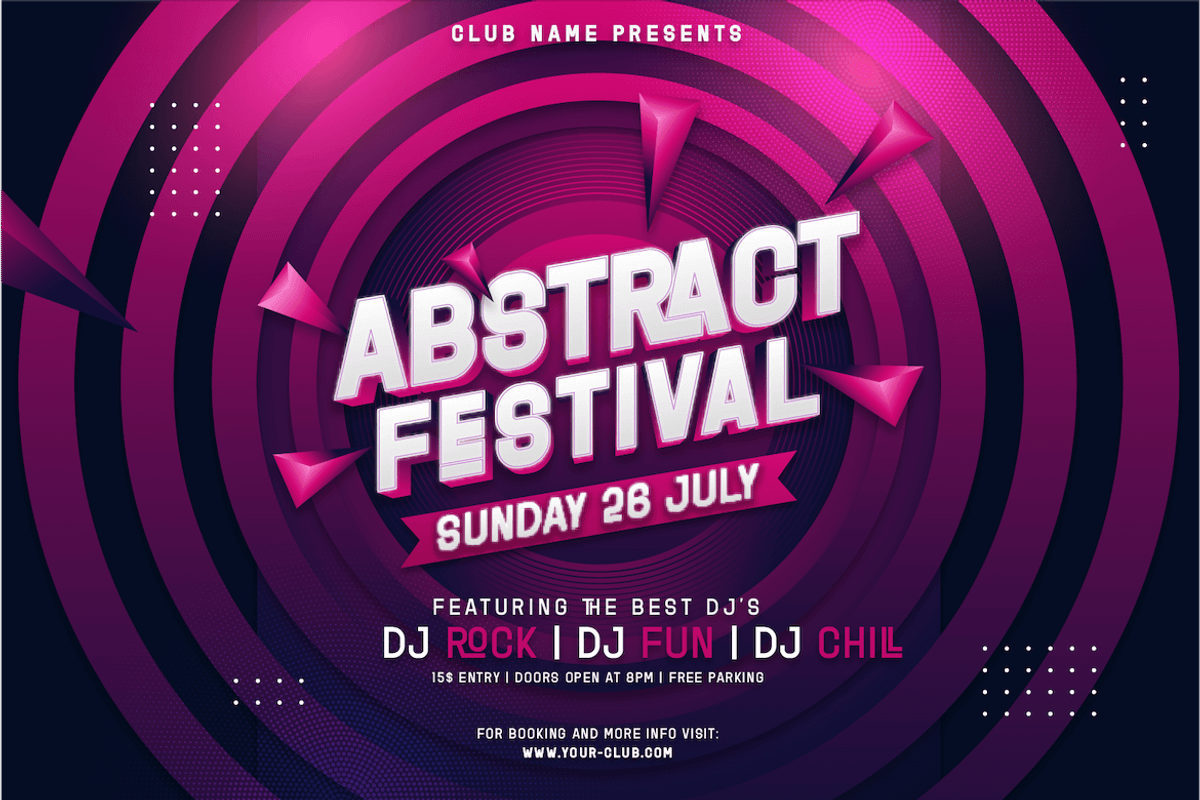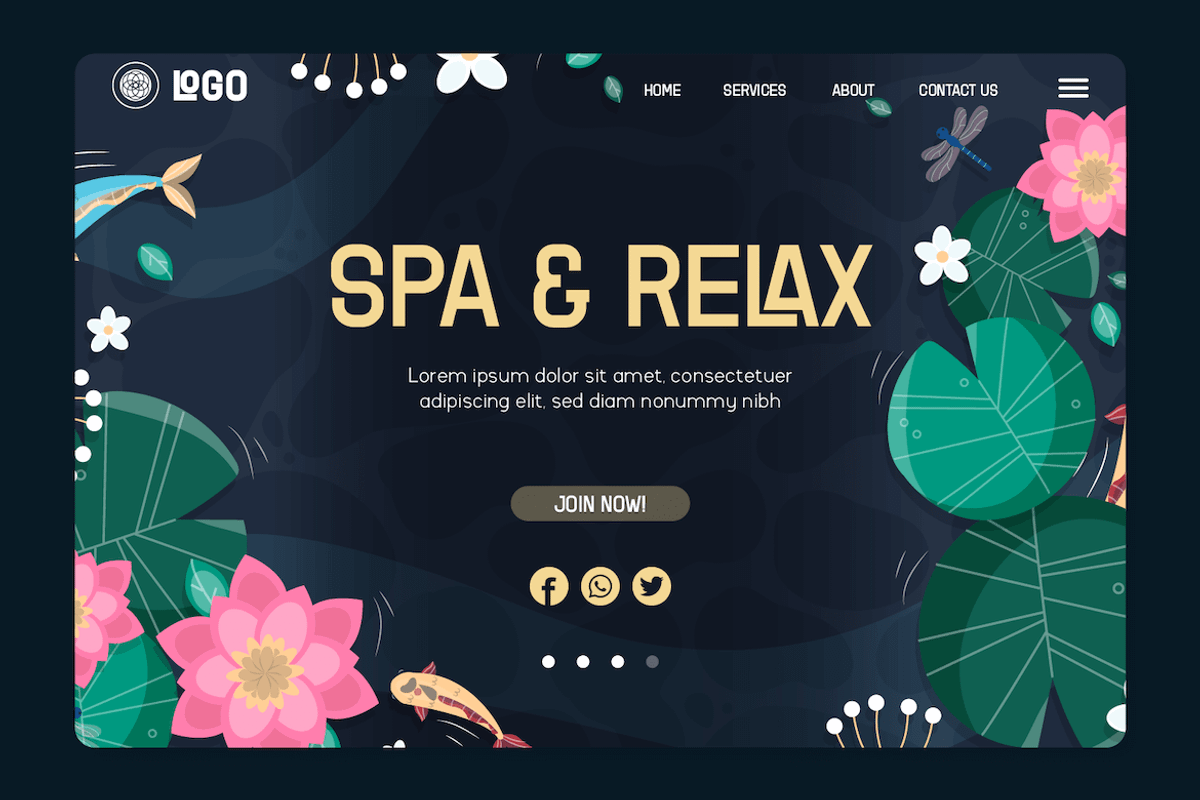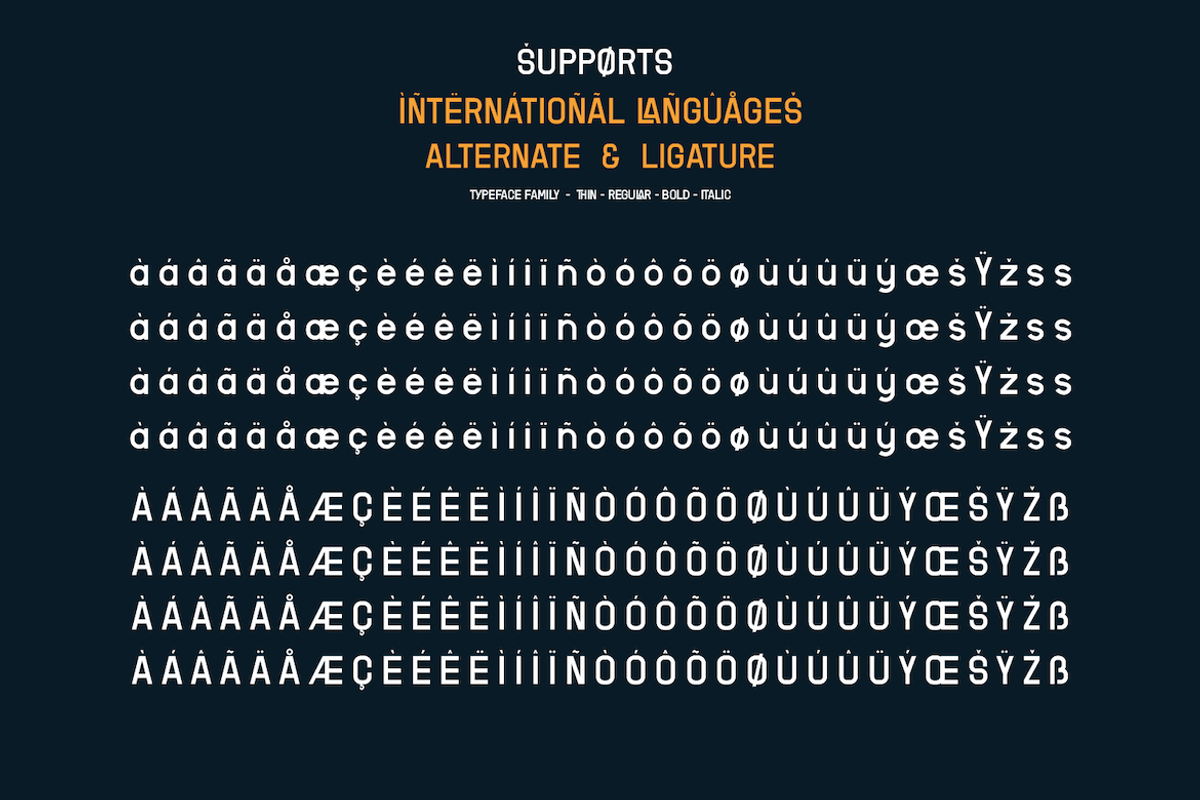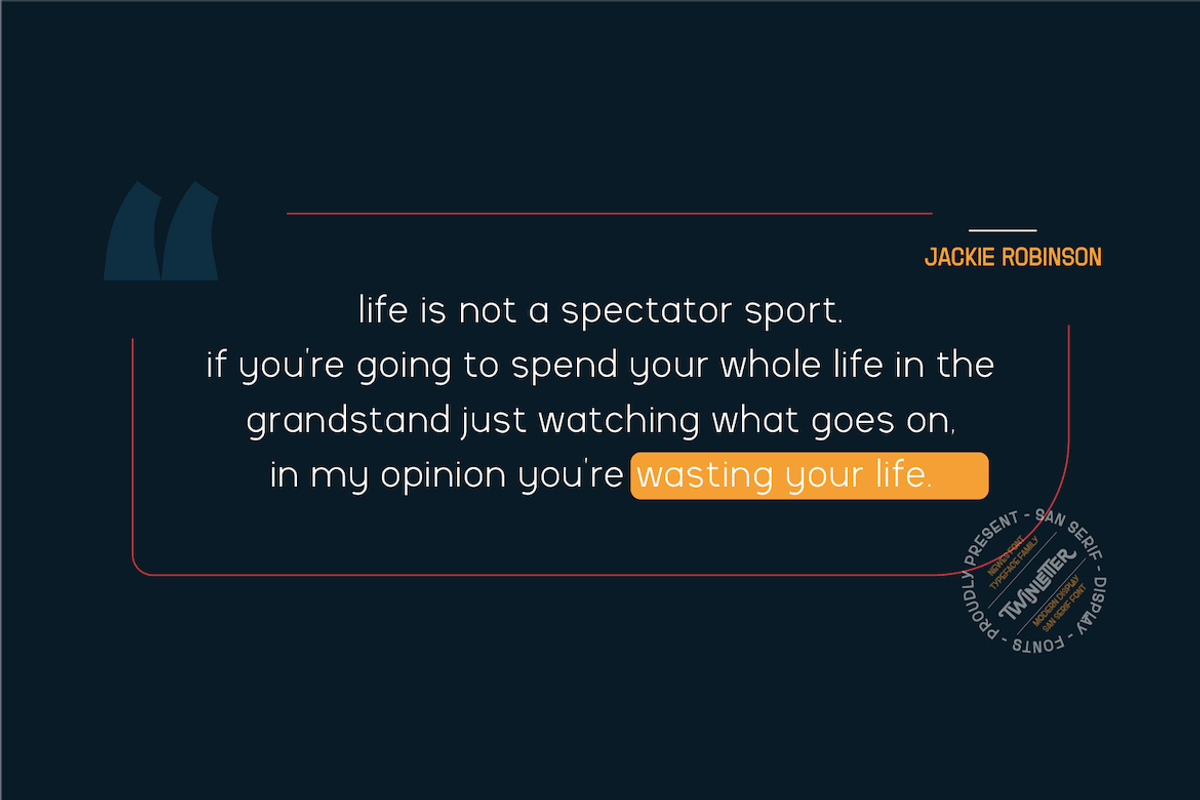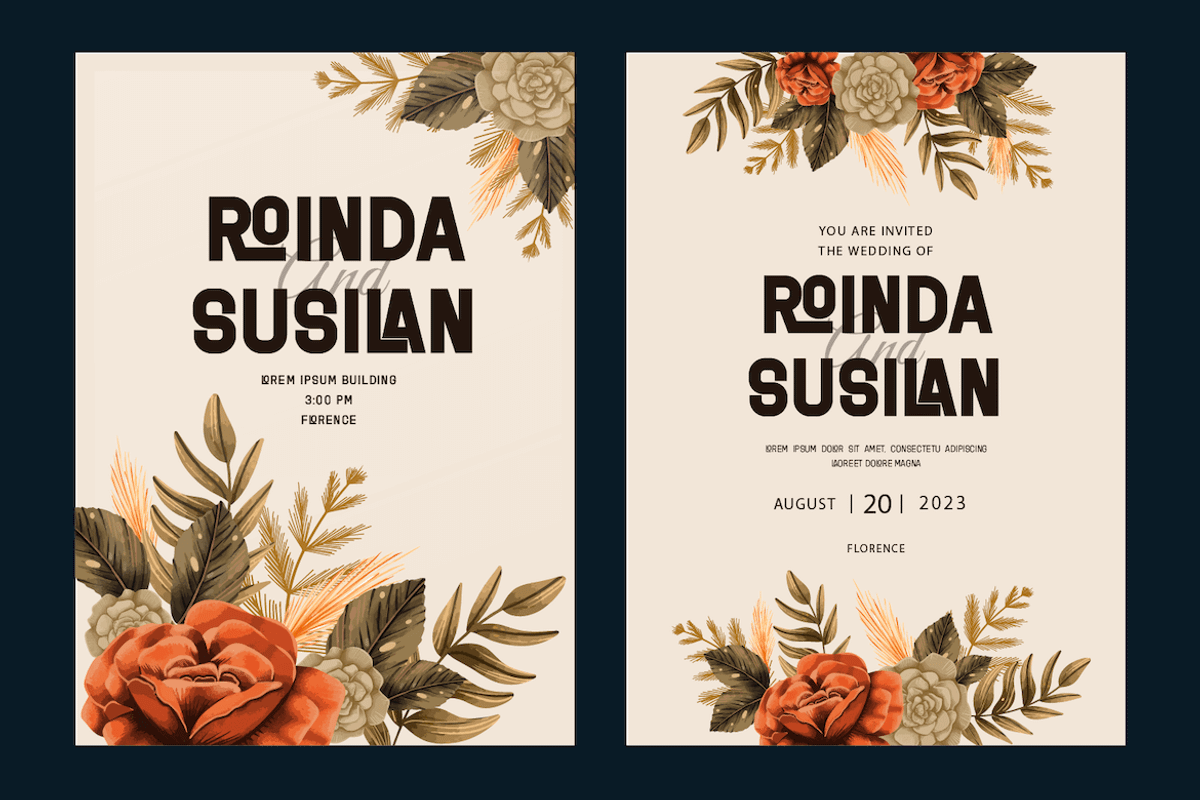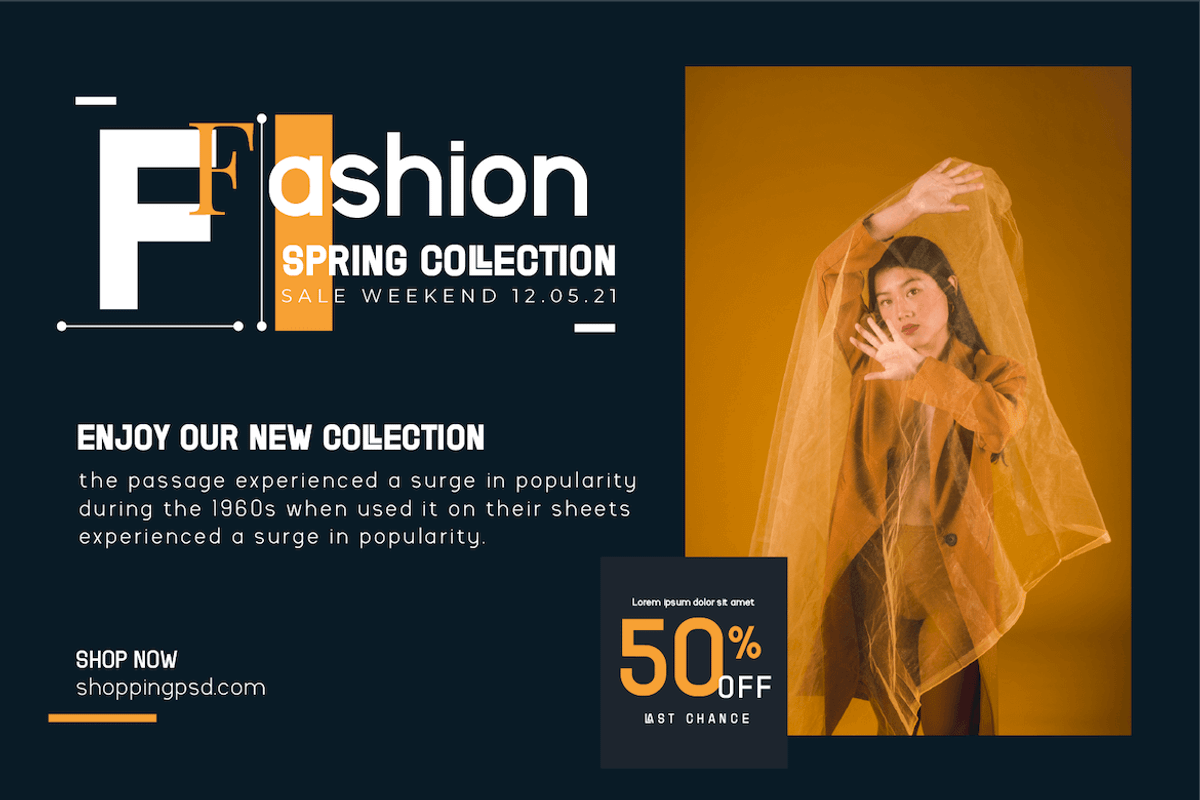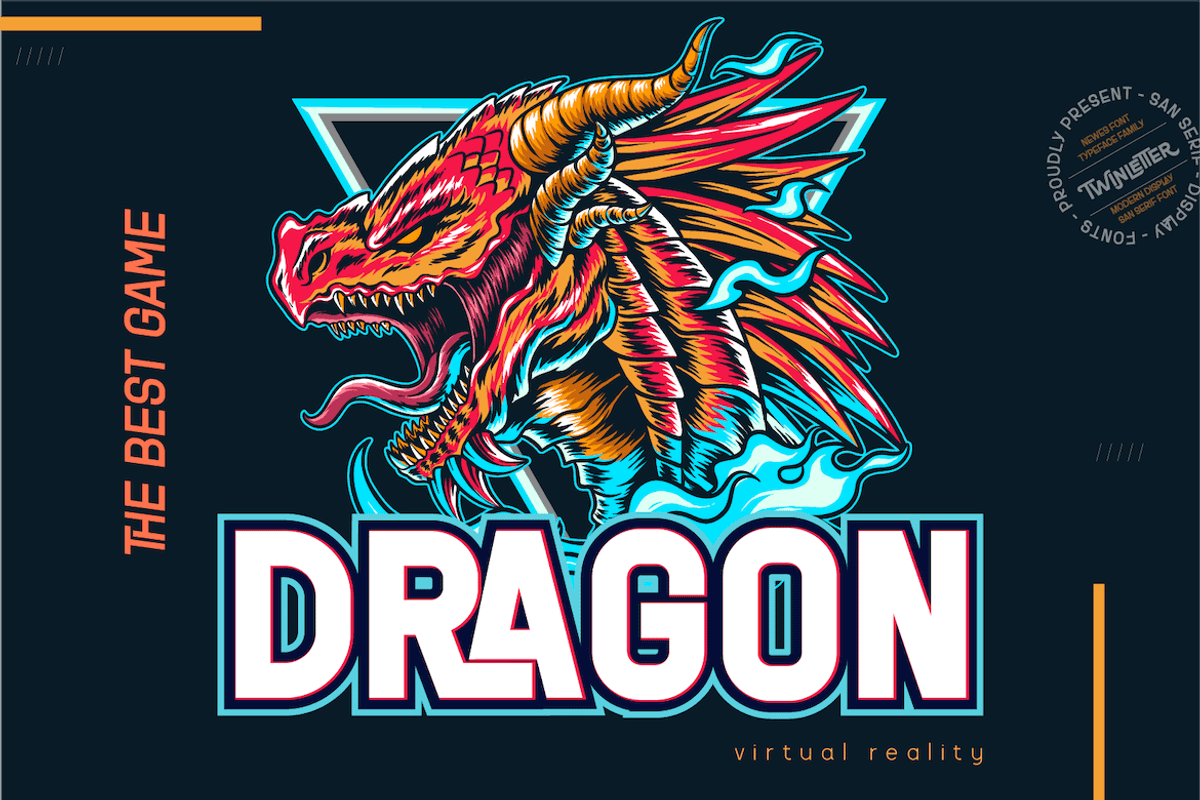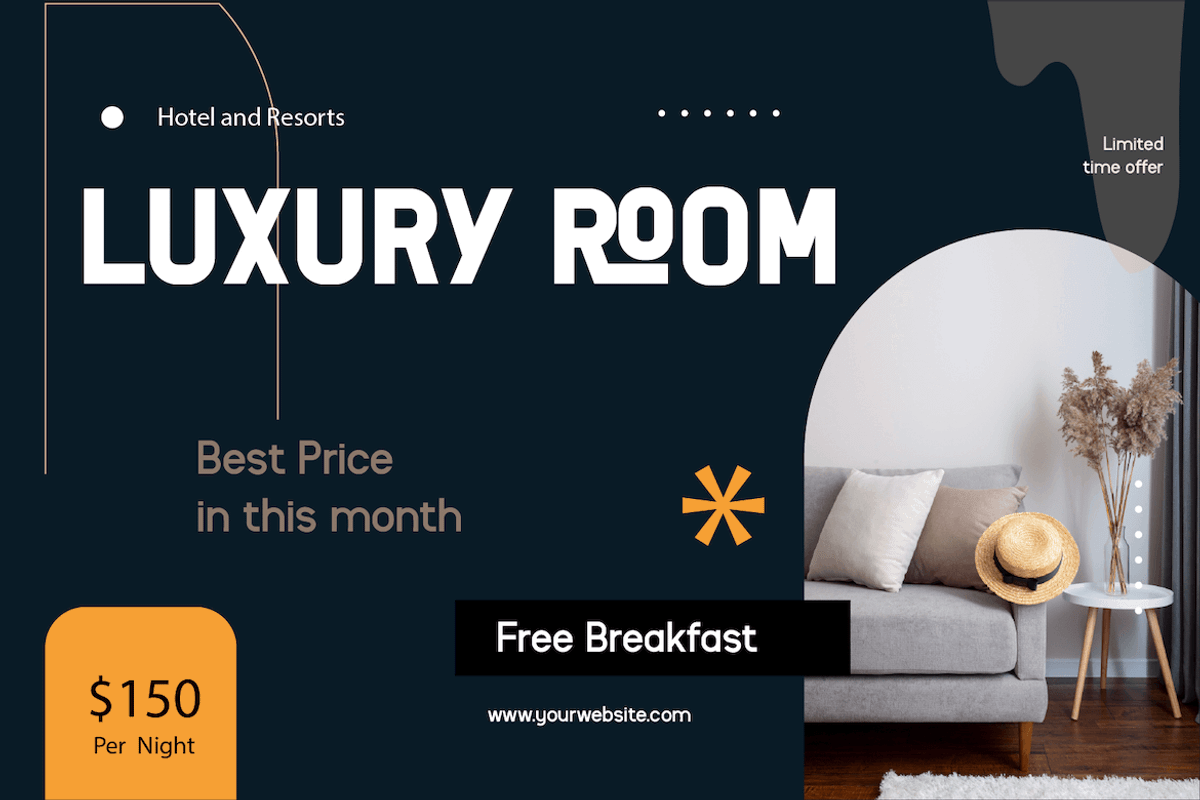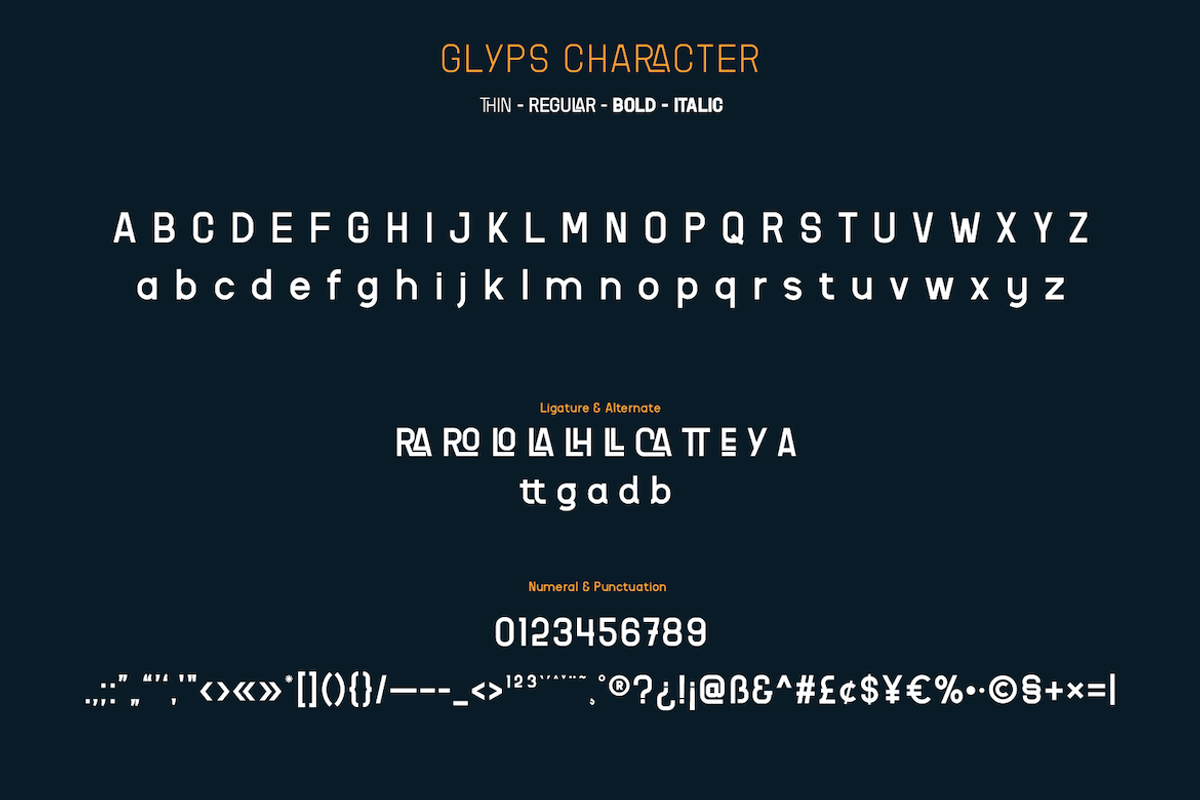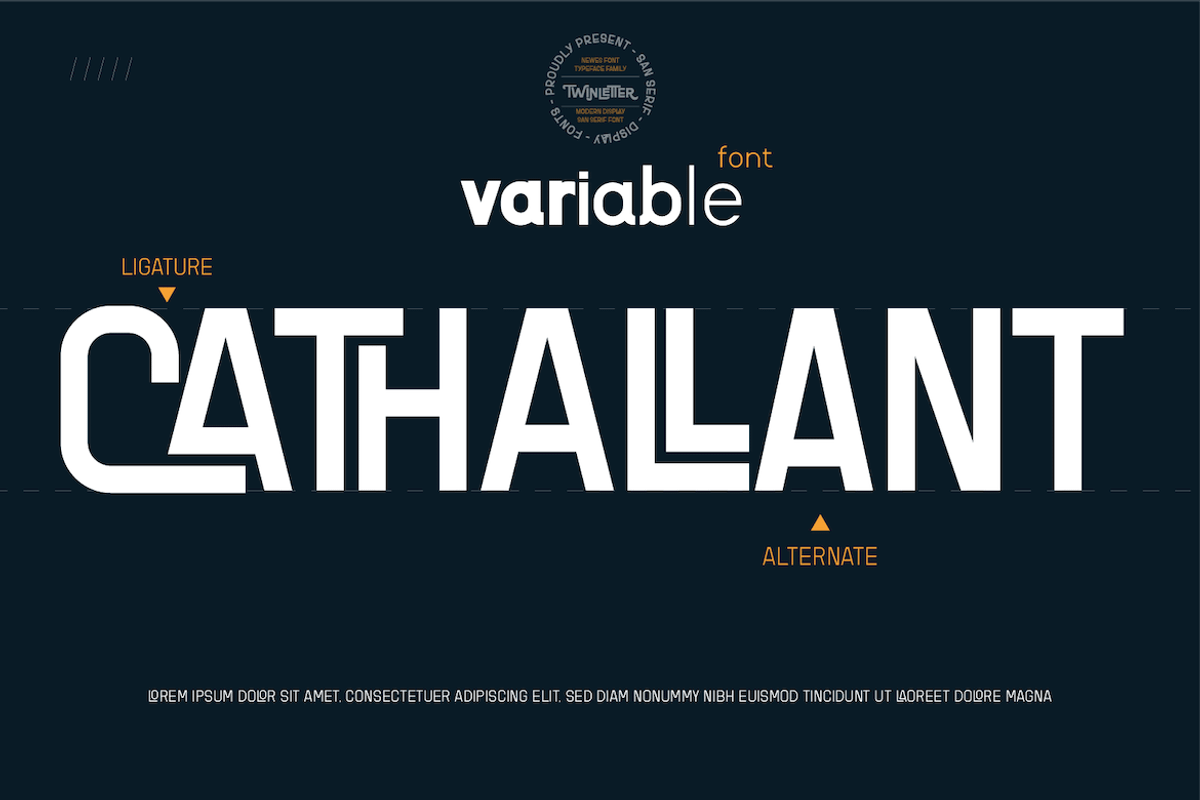
Cathra
Introducing our newest font Cathra.
a font that is enriched with a variable font family for the needs of words, as well as text, is also equipped with beautiful ligatures and alternates on certain letters. We designed this san serif family font by paying attention to the combination of each letter to create a beautiful impression and appearance, making it easier to answer your needs, both formal and non-formal needs. This font is perfect for a wide variety of design projects, sporting events, branding, banners, posters, movie titles, food and beverage, technology, quotes, clothing, logotypes, and more.
Of course, your various design projects will be perfect and amazing if you use this font because this font comes with a font family, both for titles and subtitles and sentence text, start using our fonts for your amazing projects.